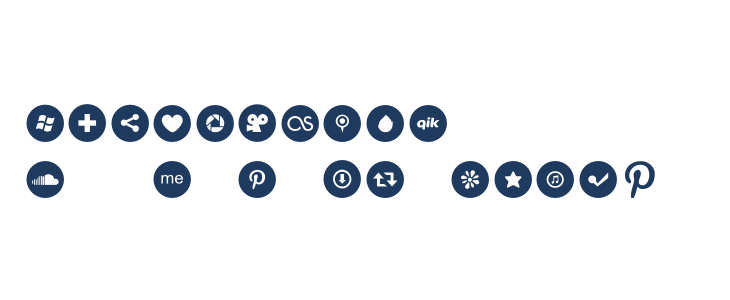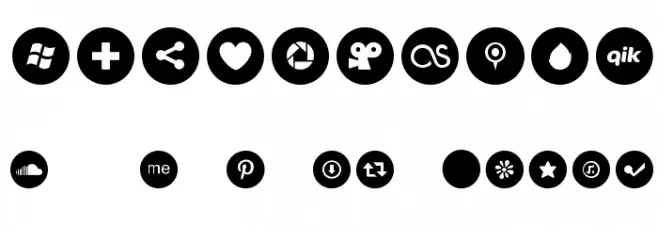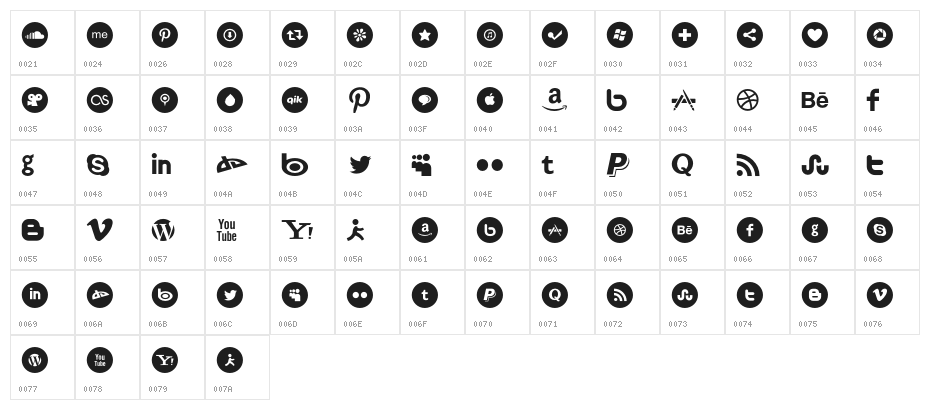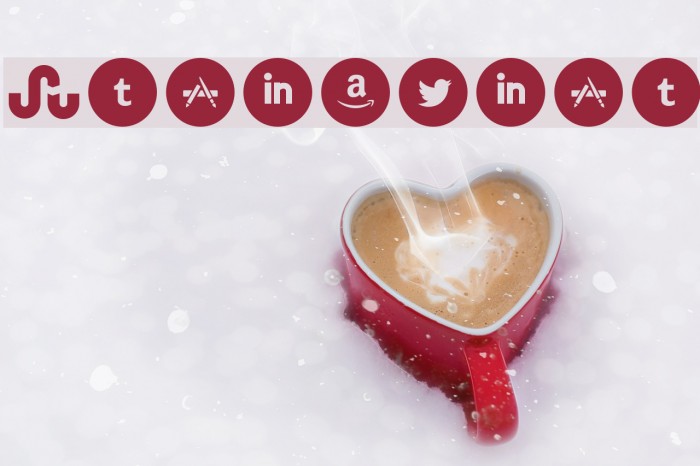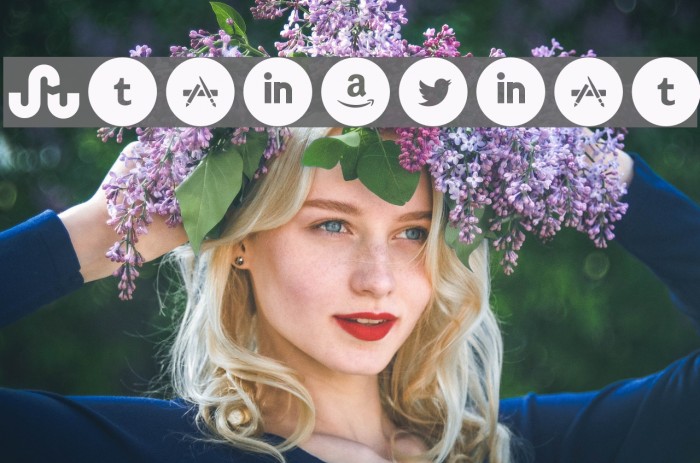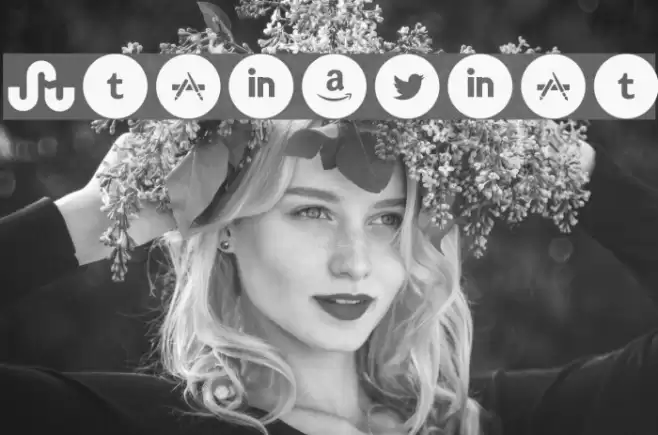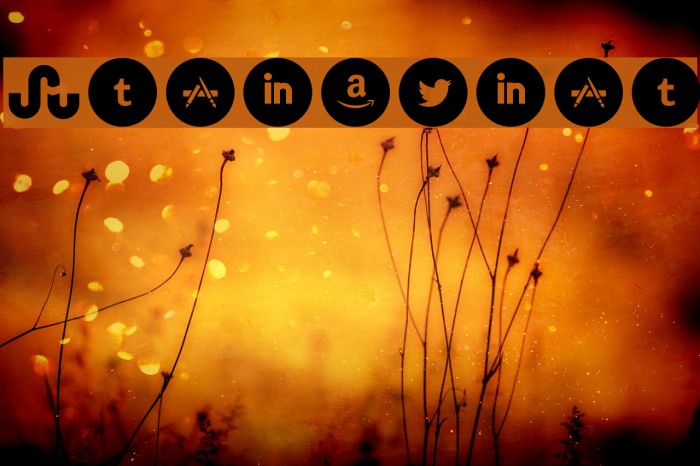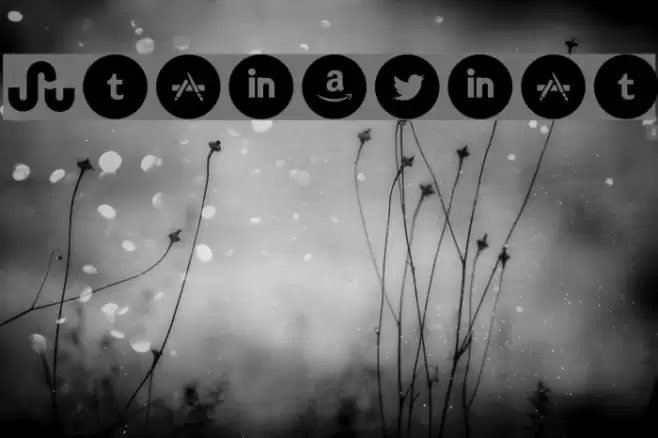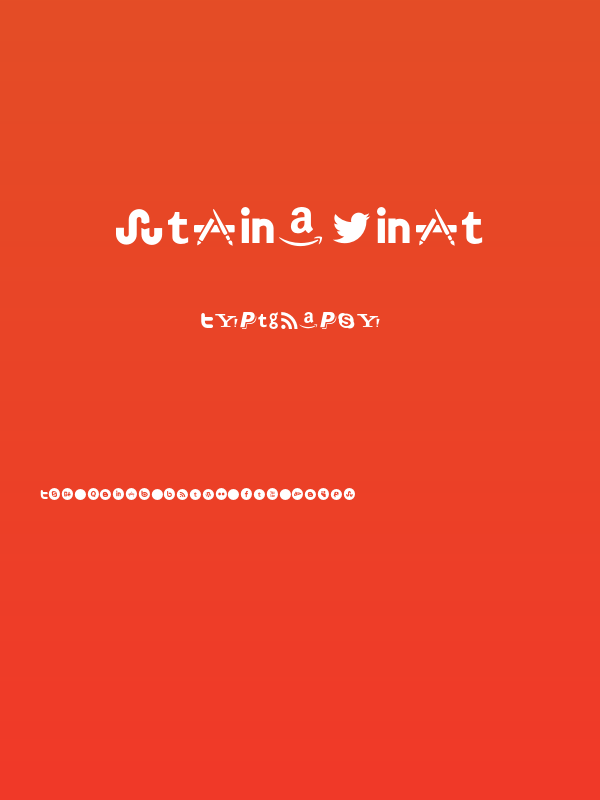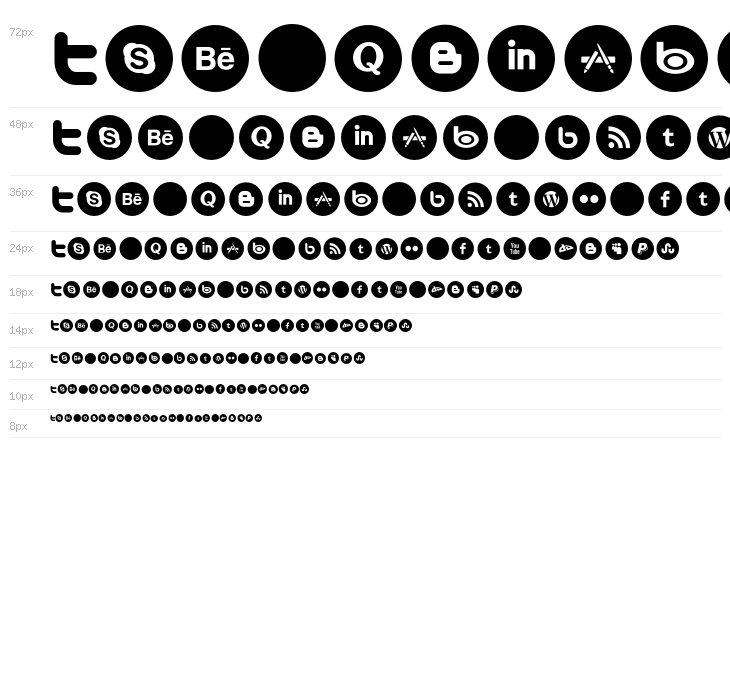
Socialico Font
Socialico Description
This is a collection of social media and brand icons designed in a bold, modern style. Each icon is a simplified representation of a well-known brand or platform, featuring clean lines and a consistent visual weight. The icons are enclosed in circular shapes, providing a uniform appearance across the set. The design is minimalistic, focusing on the essential elements of each logo to ensure recognizability even at smaller sizes. This set is ideal for digital applications where clear and concise brand representation is required.
| Use Case | Logos, Icons |
| Proposed Projects | Ideal for website footers, app interfaces, digital marketing materials, and social media graphics. |